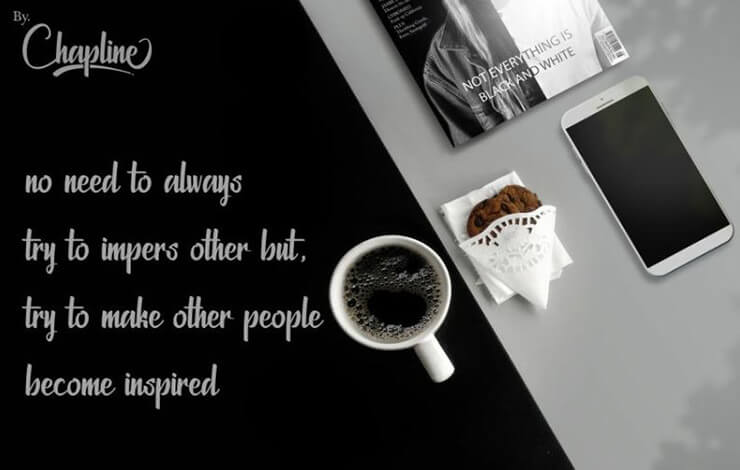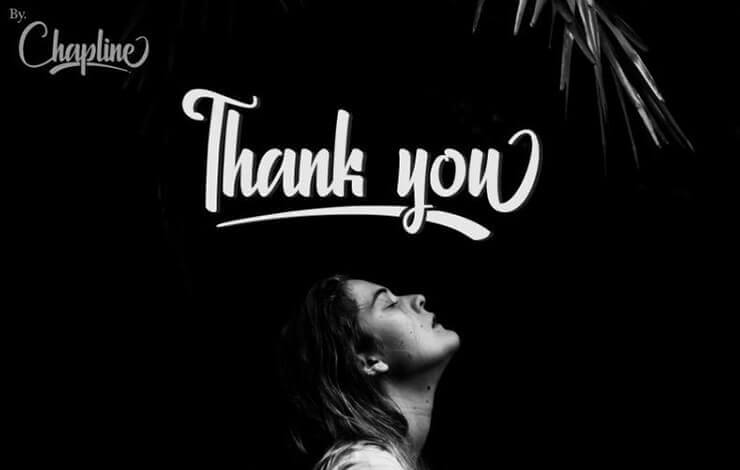
Chapline is a bold, sans-serif font with a vintage touch. Ideal for headlines, logos, and posters. Adds a unique, eye-catching look to any design.
A very young designer Muhammad Faisal Saeed is from Indonesia. Ditoollis took charge of designing and releasing it for the first time through the project.
After its release, the Chapline font became a huge success within a few days. Due to its very clear appearance and extensive language, many designers start using it for their various design purposes.
Font Name: | Chapline Font Family |
Style: | Script, Brush, Handwritten |
Font Designer: | Ditoollis |
You can use it for various design purposes. Like creating a certificate, a clean logo, brochure design, wedding, invitation or business card designs, stationery, fabric printing, and many other related methods.
This script font family supports many international languages and comes in regular styles only. All letters included in this family are hand drawn.